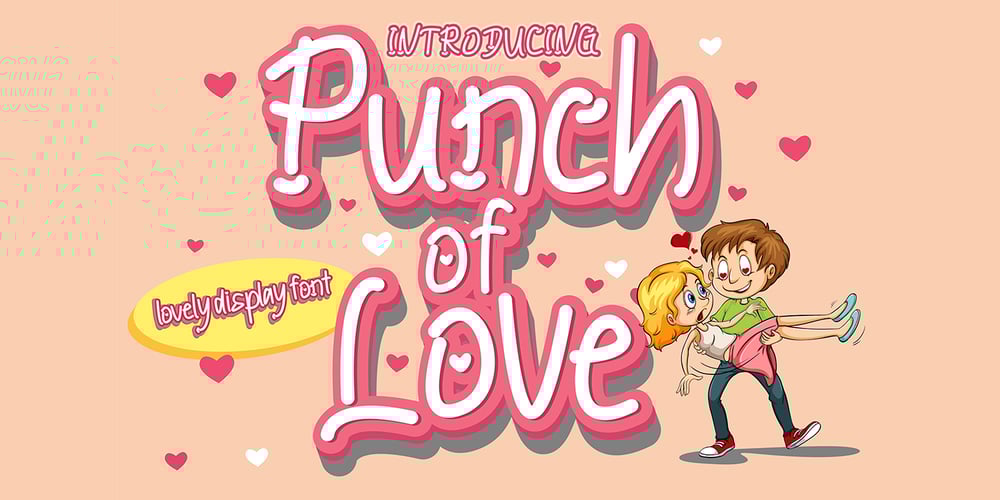
Punch of Love
Punch of Love font
Punch of Love Font Family was designed by Sipanji and published by Sipanji21. Punch of Love contains 1 styles and family package options. Punch Of Love is a lovely display font that radiates charm. It features gorgeous hearts in each letter which give it an incredibly romantic feel. this font suitable for valentine day poster, logo, t shirt, event banner and etc. you can use this font for any design, apparel, kids logo, logo type, with many swash for make your design awesome.